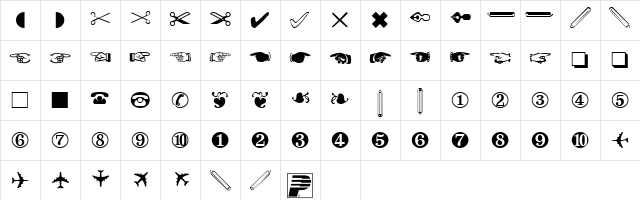
PT Whatsits Normal
Design Context for PT Whatsits Typeface
PT Whatsits is a composed and adaptable typeface that performs quietly and consistently across a wide range of design contexts.